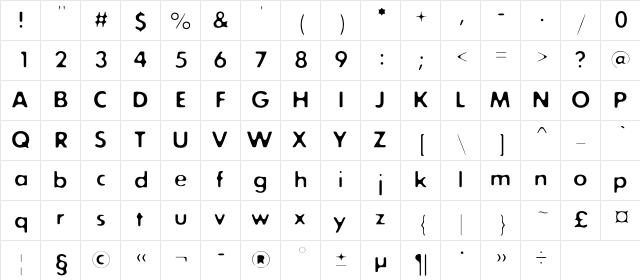
ExposureOneC Regular
Design Context for ExposureOneC Typeface
ExposureOneC takes a measured approach to typography — its balanced proportions and neutral character make it a reliable workhorse for both digital and print work.
Pro Tip: Use ExposureOneC in both headline and body roles to test its range before committing to a single application.